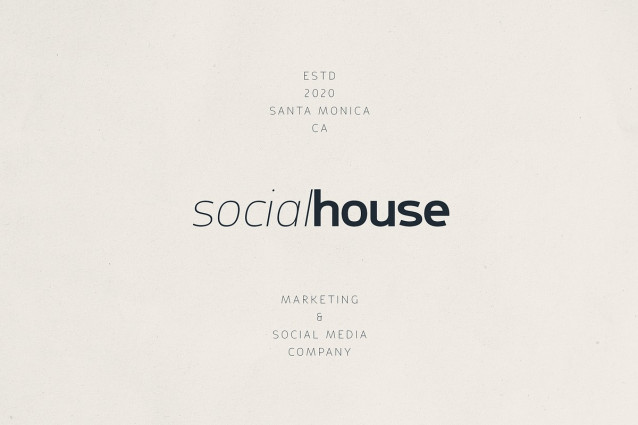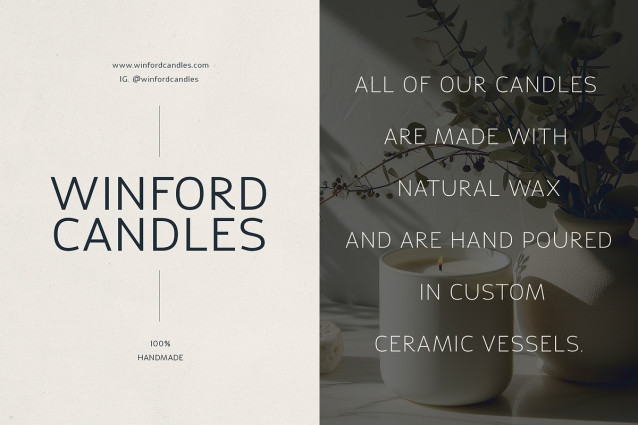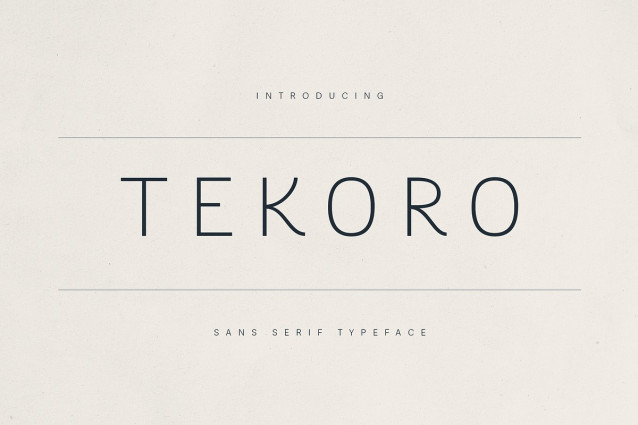
Tekoro Font Family
Tekoro Font Family is a sleek and sophisticated sans serif font built with geometric precision and minimalist elegance. Designed for modern branding, UI design, packaging, and editorial use, Tekoro brings clarity, style, and a contemporary touch to any project. Its clean lines, subtle quirks, and rounded terminals give it both functionality and character, making it perfect for premium lifestyle brands, startups, and creative professionals.
Tekoro comes with 9 weights from Thin to Black, supports 85+ languages, and includes complete uppercase, lowercase, numbers, punctuation, symbols, and multilingual accents. Whether you’re designing a fashion brand identity, a digital product interface, or an elegant magazine spread, Tekoro adapts effortlessly across mediums.